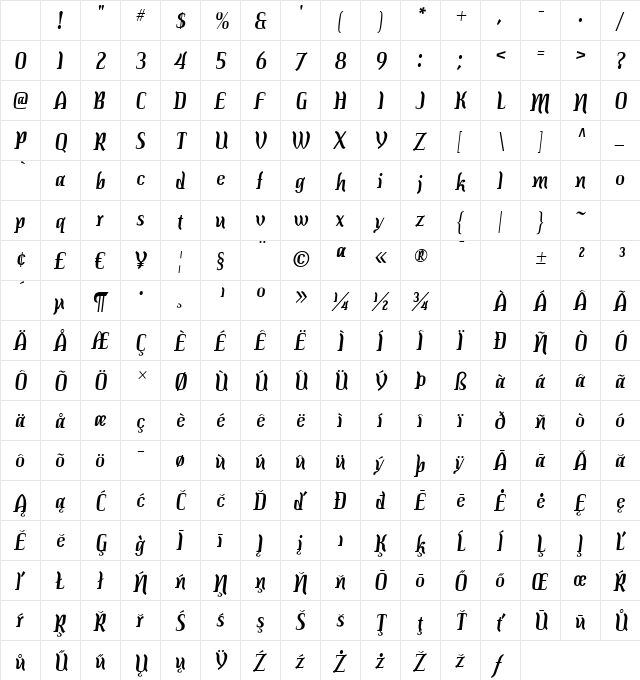
Colourbars Regular
Complete Colourbars Regular glyph index. Displaying only characters natively supported by Colourbars Regular font.
Design Context for Colourbars
Colourbars is a composed and adaptable typeface that performs quietly and consistently across a wide range of design contexts.